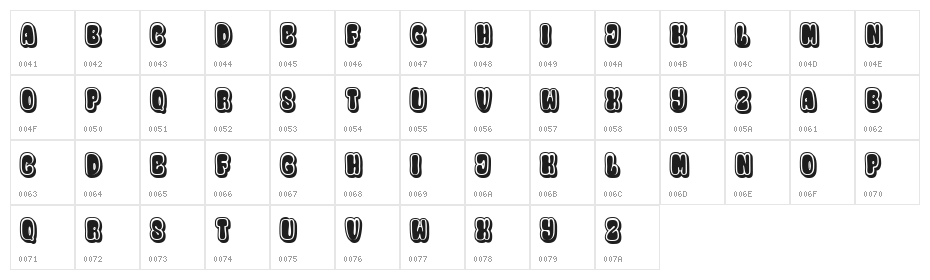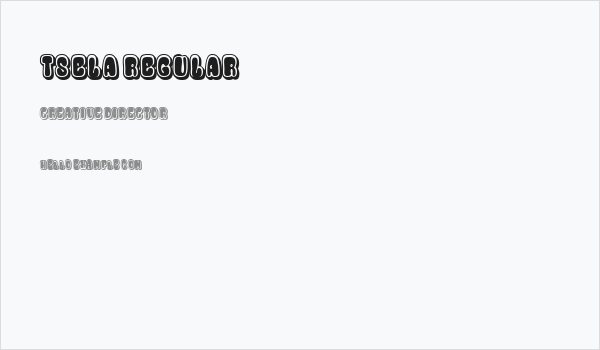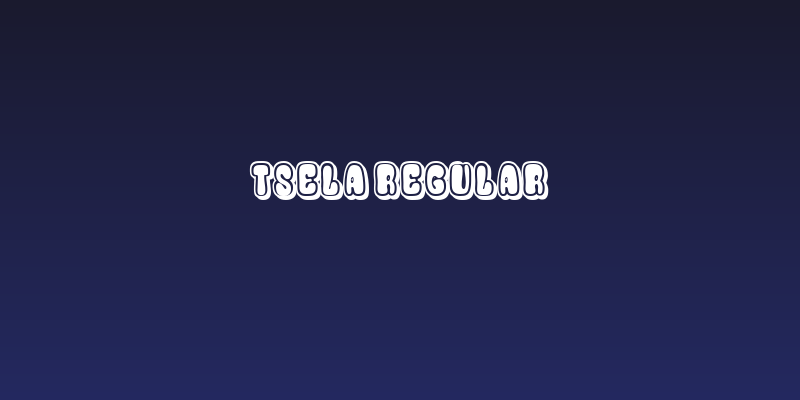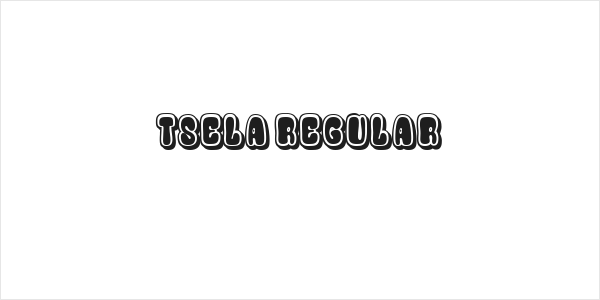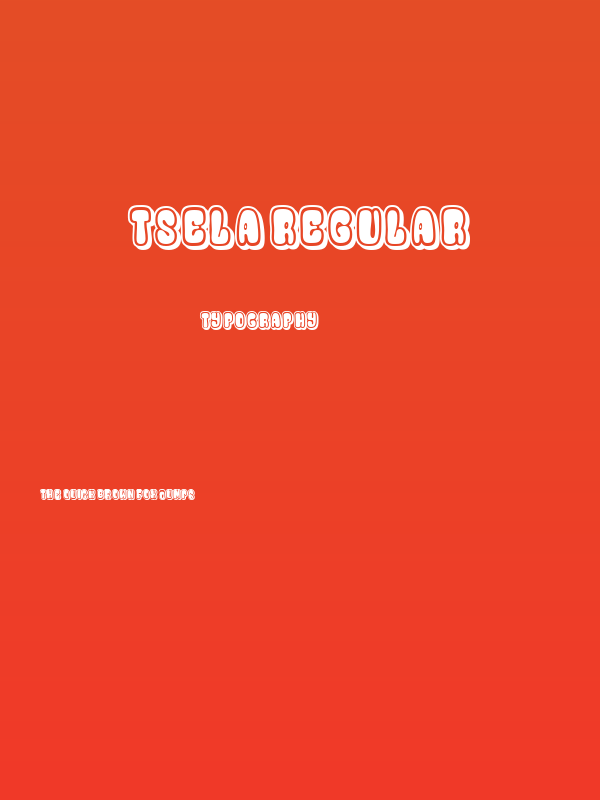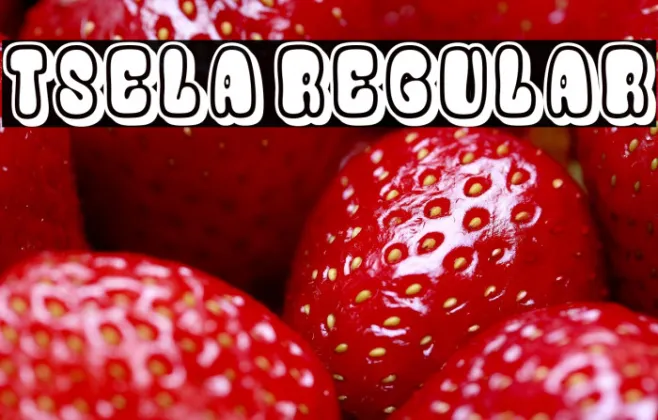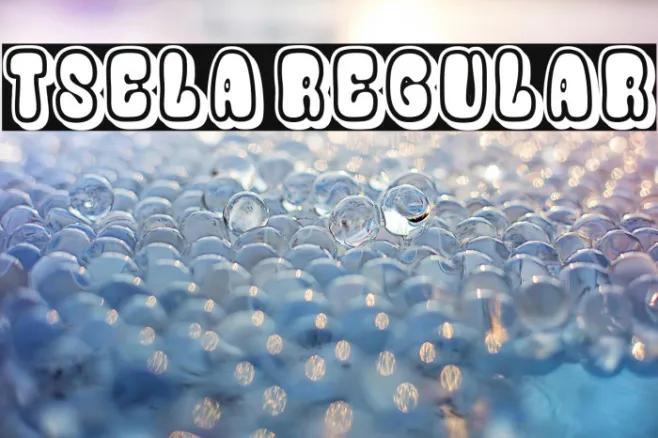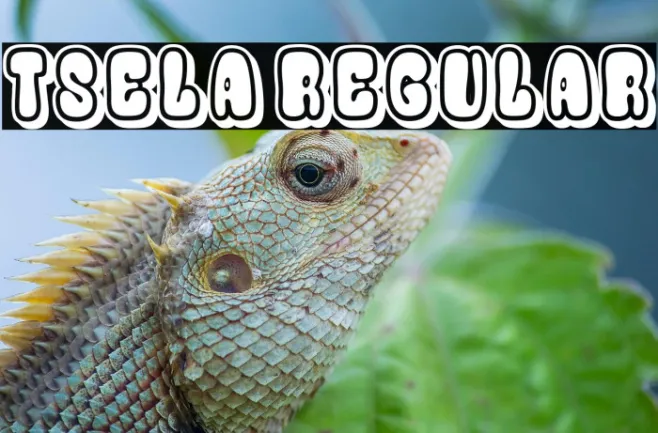
Tsela Regular Font
Tsela Regular Description
This font features bold, rounded characters with a thick outline that gives it a playful and eye-catching appearance. The letters are uniformly wide, creating a sense of balance and consistency across the typeface. The bold outlines enhance the visibility and make it suitable for standout designs. Its playful nature is emphasized by the rounded edges and the uniform thickness of the strokes, which contribute to a friendly and approachable look. This style is particularly effective in capturing attention and conveying a sense of fun and creativity.
| Proposed Projects | Ideal for children's book covers, playful posters, party invitations, and branding for fun-oriented products. |